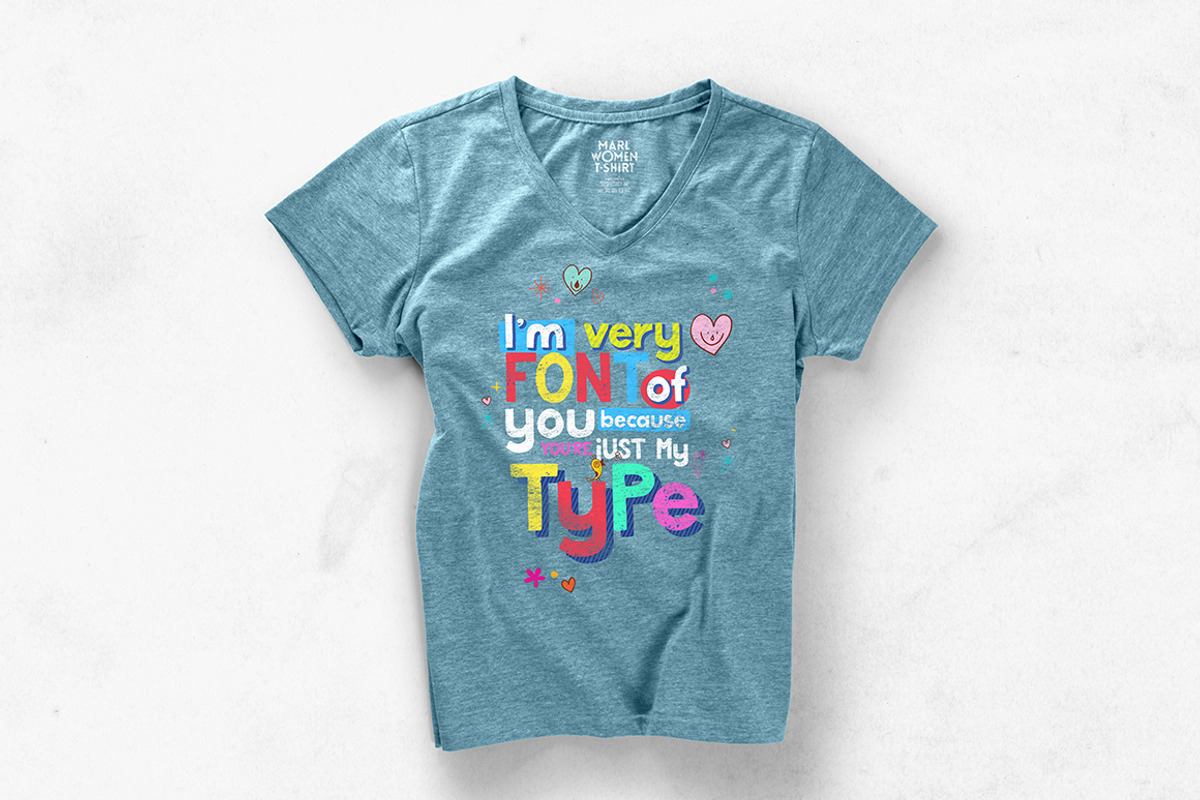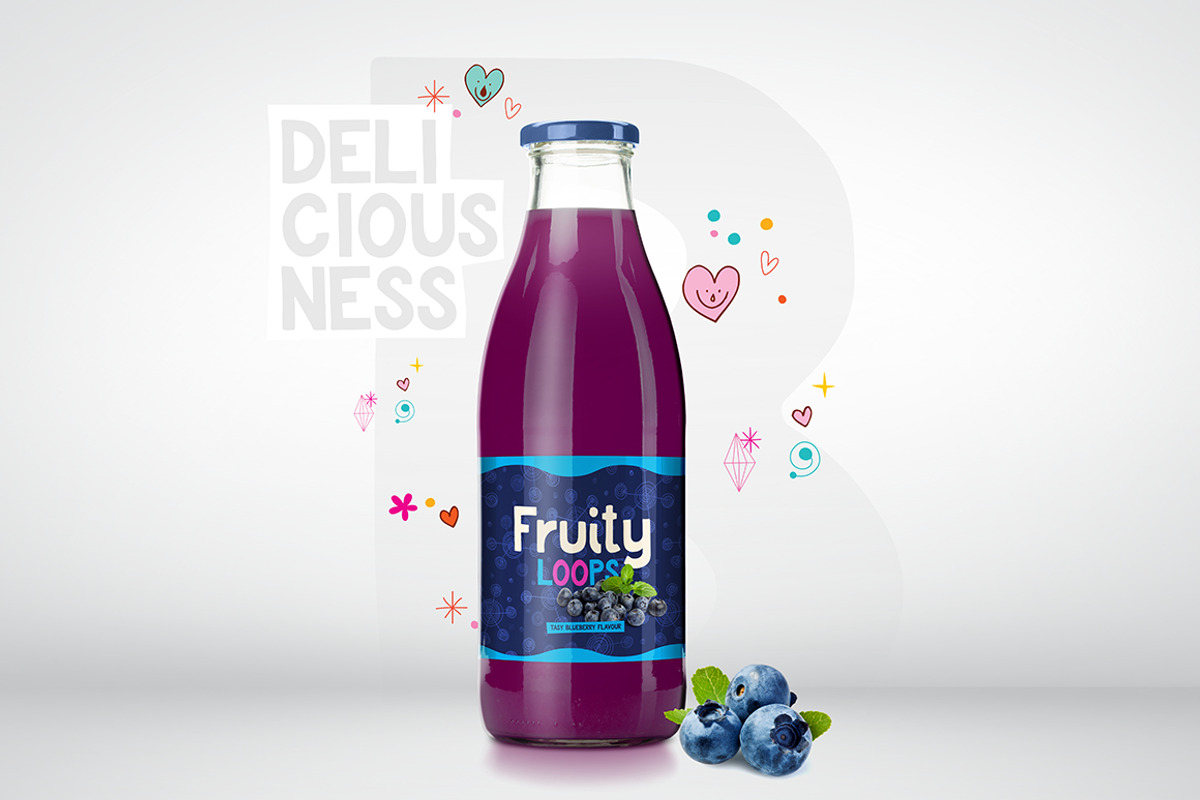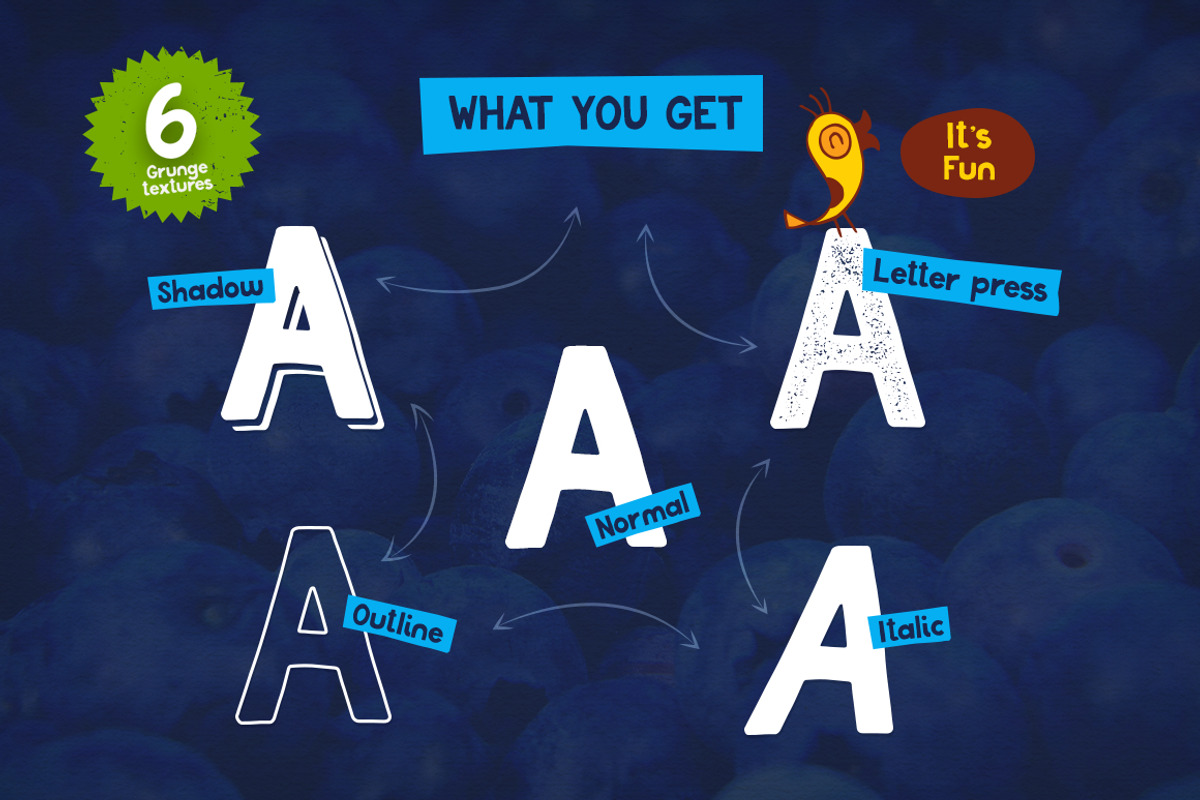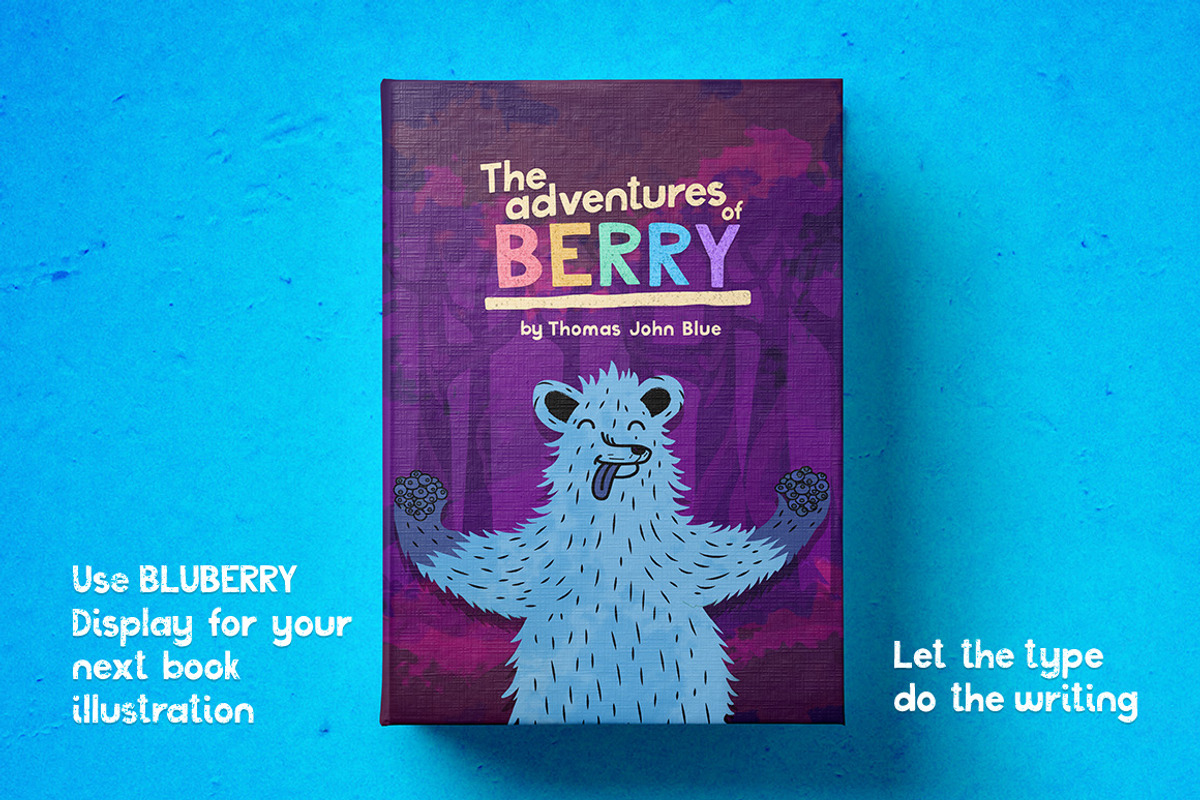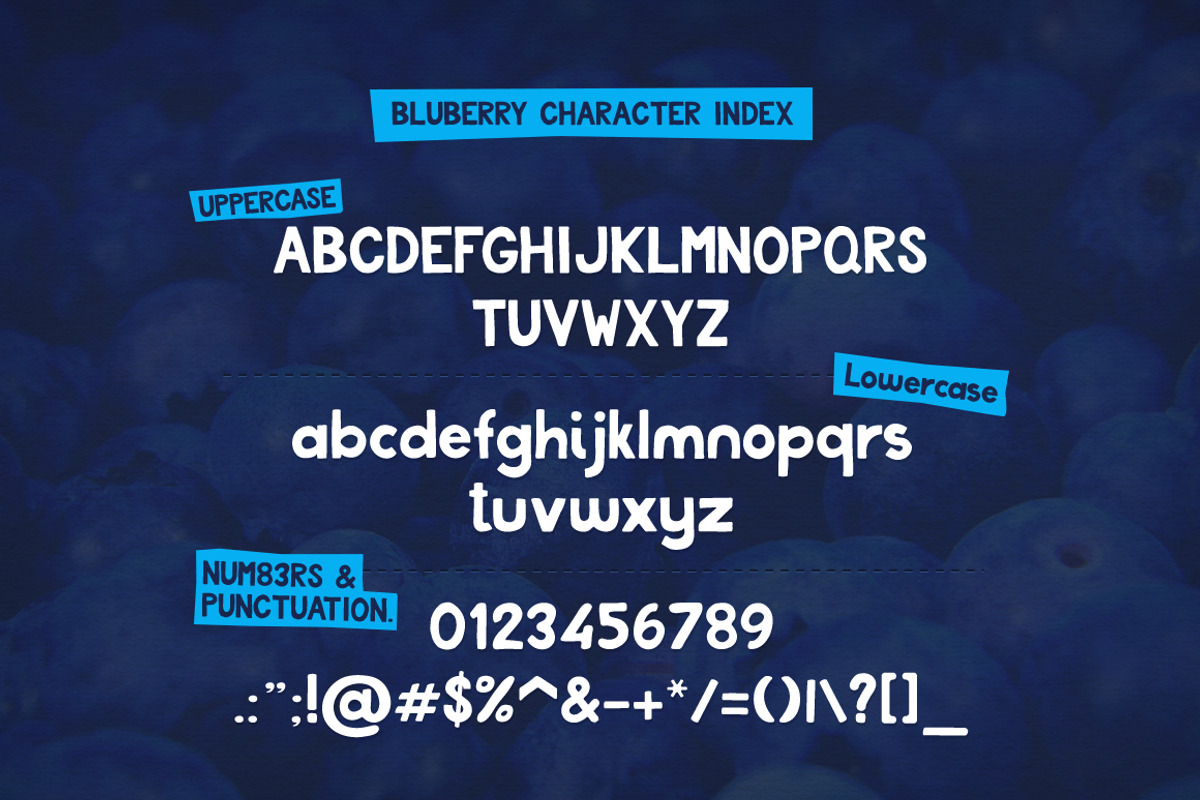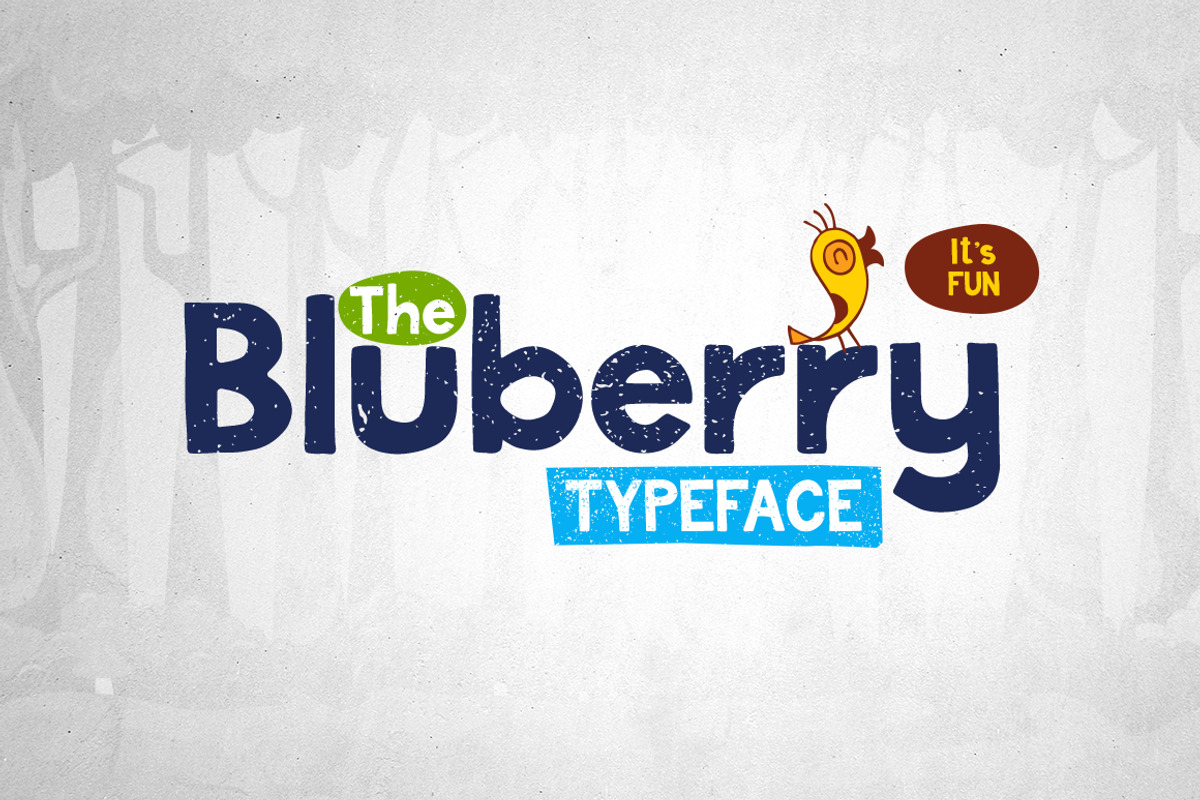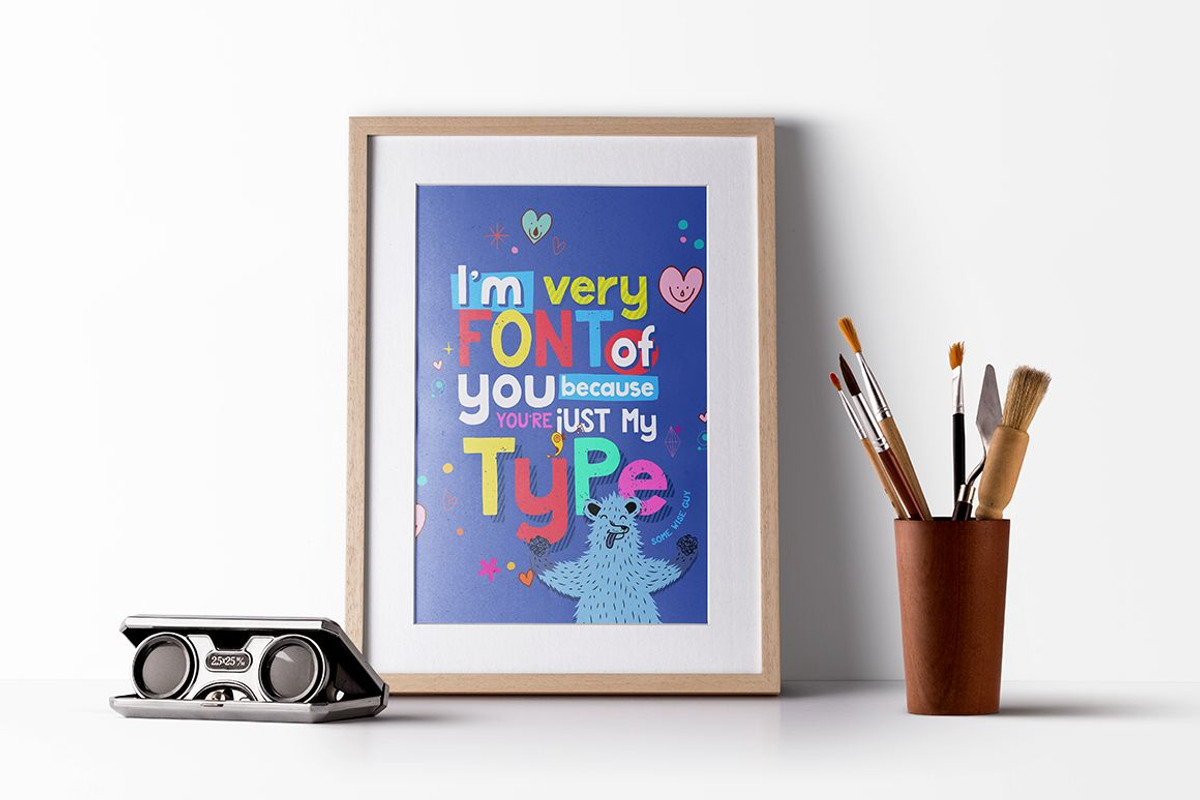
Blueberry font
Blueberry font by Squarepack is a font selected for branding, posters, packaging, typography.
- Blueberry has Normal style (fully Western European with 77 new glyphs) Italic style Outlined style Grunge style Shadow style 6 textures...yo
- Bluberry Normal
- Bluberry Italic
- Bluberry Grunge
- Bluberry Outline
- Bluberry Shadow
Why Blueberry font is worth a look
Blueberry font by Squarepack fits naturally into Branding, posters, packaging, typography.